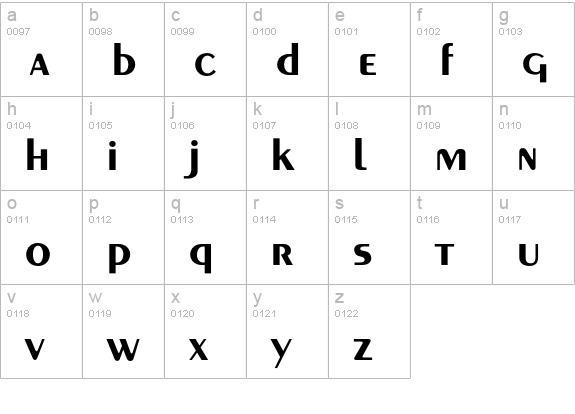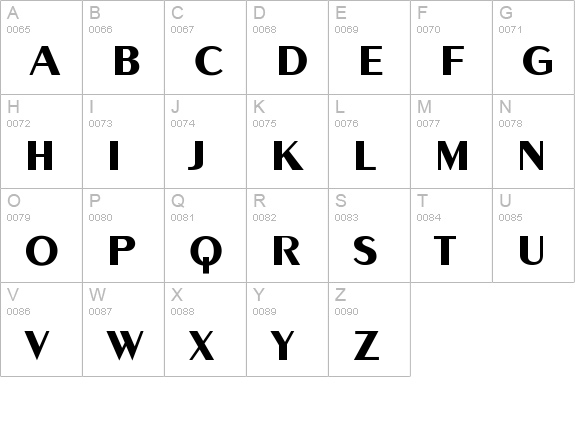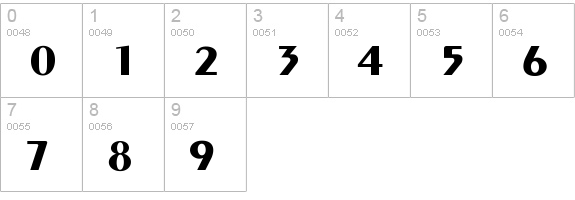
Introducing GreyhoundBold font, a sleek and modern typeface that exudes sophistication and elegance. With its bold and striking appearance, GreyhoundBold is perfect for making a statement in your designs. This versatile font is ideal for a wide range of projects, from branding and logos to headlines and posters. The best part? GreyhoundBold is completely free to download at FontsMarket.com. Now you can elevate your designs with this premium font without breaking the bank. Don't miss out on this opportunity to add a touch of class to your projects with GreyhoundBold. Download it today and let your creativity shine!